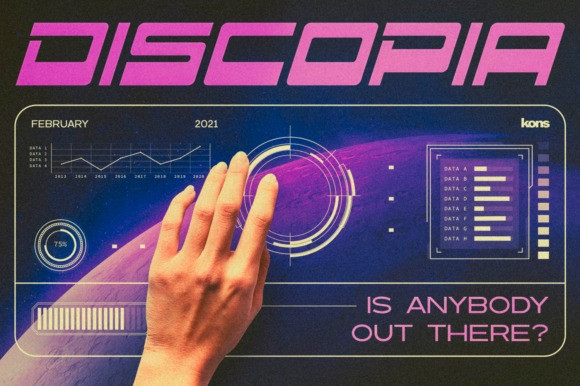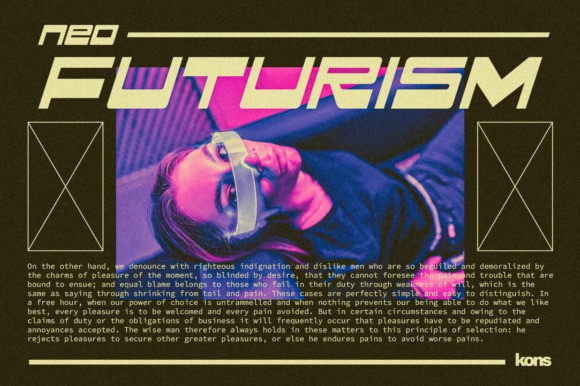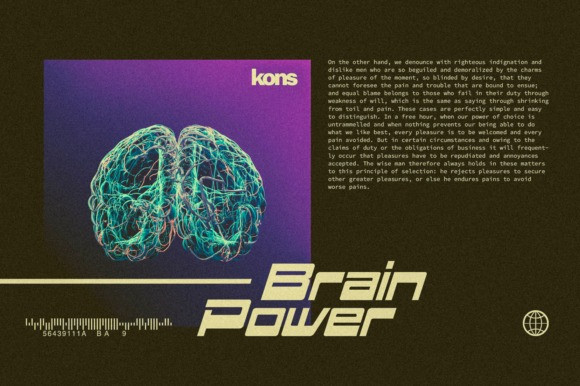
Discopia Font
Discopia is a cool, bold and thick lettered display font. It can easily be matched to an incredibly large set of projects, so add it to your creative ideas and notice how it makes them stand out!